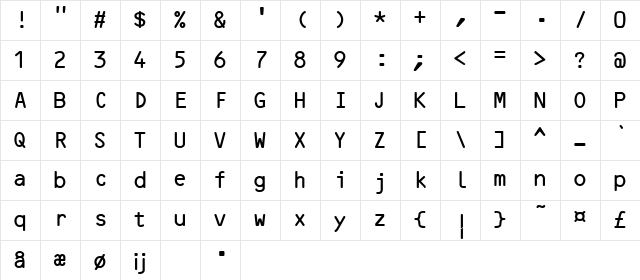
WASP OCR B Regular Free Font
WASP OCR B Regular
Design Context for WASP OCR B
WASP OCR B is a composed and adaptable typeface that performs quietly and consistently across a wide range of design contexts.